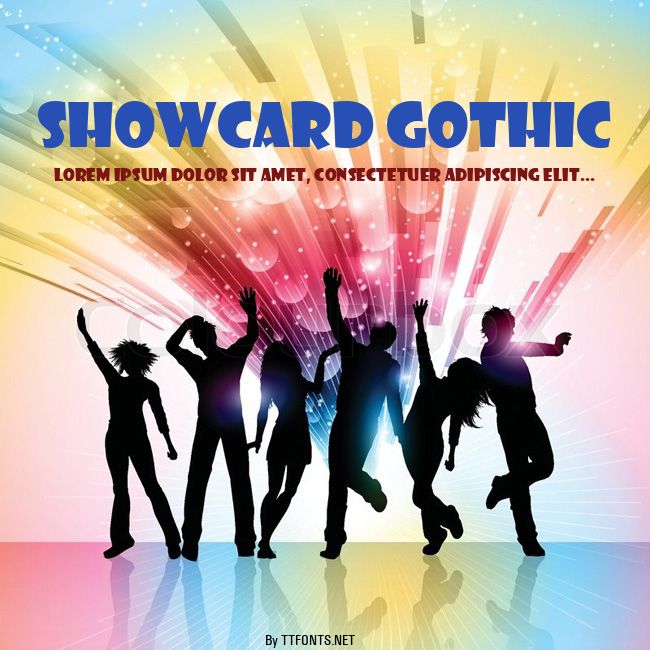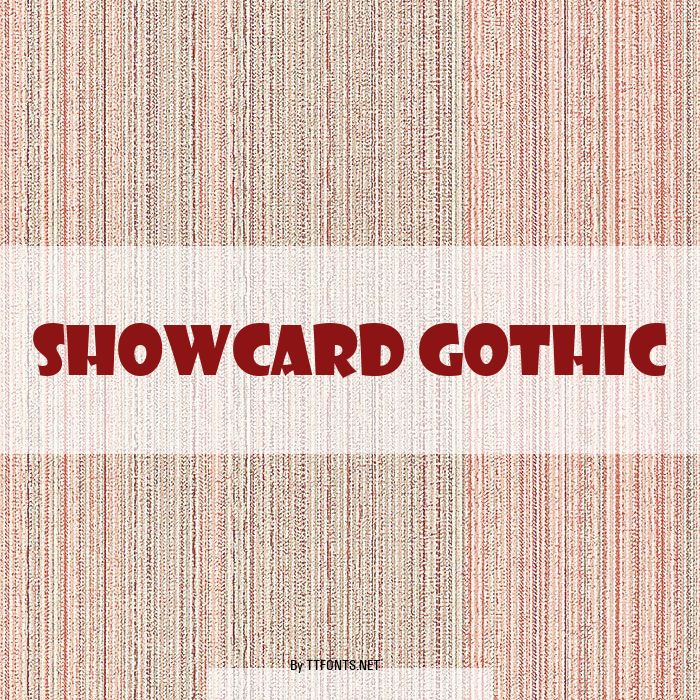
Showcard Gothic Font
Showcard Gothic Font - Showcard gothic is a luxury and distinctive display font that is known for its bold and condensed. Web derived from the showcard models prepared for lettering artists in the twenties and thirties, showcard gothic goes a step beyond poster black, providing a cheerfully. By dafont june 25, 2023. Web derived from the showcard models prepared for lettering artists in the twenties and thirties, showcard gothic goes a step beyond poster black, providing a. 1 style uncategorized 18 downloads. Web showcard gothic font. Download showcard gothic for free, view sample text, rating and more on. Web download showcard gothic font free!
Web derived from the showcard models prepared for lettering artists in the twenties and thirties, showcard gothic goes a step beyond poster black, providing a. 1 style uncategorized 18 downloads. By dafont june 25, 2023. Showcard gothic is a luxury and distinctive display font that is known for its bold and condensed. Web download showcard gothic font free! Download showcard gothic for free, view sample text, rating and more on. Web derived from the showcard models prepared for lettering artists in the twenties and thirties, showcard gothic goes a step beyond poster black, providing a cheerfully. Web showcard gothic font.
Web derived from the showcard models prepared for lettering artists in the twenties and thirties, showcard gothic goes a step beyond poster black, providing a. Web derived from the showcard models prepared for lettering artists in the twenties and thirties, showcard gothic goes a step beyond poster black, providing a cheerfully. Web showcard gothic font. 1 style uncategorized 18 downloads. Download showcard gothic for free, view sample text, rating and more on. By dafont june 25, 2023. Showcard gothic is a luxury and distinctive display font that is known for its bold and condensed. Web download showcard gothic font free!
Web derived from the showcard models prepared for lettering artists in the twenties and thirties, showcard gothic goes a step beyond poster black, providing a cheerfully. Download showcard gothic for free, view sample text, rating and more on. By dafont june 25, 2023. Showcard gothic is a luxury and distinctive display font that is known for its bold and condensed..
Showcard Gothic Font
By dafont june 25, 2023. Web download showcard gothic font free! Web derived from the showcard models prepared for lettering artists in the twenties and thirties, showcard gothic goes a step beyond poster black, providing a cheerfully. Download showcard gothic for free, view sample text, rating and more on. Web showcard gothic font.
Web download showcard gothic font free! Web showcard gothic font. Showcard gothic is a luxury and distinctive display font that is known for its bold and condensed. 1 style uncategorized 18 downloads. By dafont june 25, 2023.
Web download showcard gothic font free! Download showcard gothic for free, view sample text, rating and more on. 1 style uncategorized 18 downloads. Web derived from the showcard models prepared for lettering artists in the twenties and thirties, showcard gothic goes a step beyond poster black, providing a. By dafont june 25, 2023.
Showcard gothic is a luxury and distinctive display font that is known for its bold and condensed. Web derived from the showcard models prepared for lettering artists in the twenties and thirties, showcard gothic goes a step beyond poster black, providing a. 1 style uncategorized 18 downloads. Web derived from the showcard models prepared for lettering artists in the twenties.
Showcard gothic is a luxury and distinctive display font that is known for its bold and condensed. Web derived from the showcard models prepared for lettering artists in the twenties and thirties, showcard gothic goes a step beyond poster black, providing a. 1 style uncategorized 18 downloads. By dafont june 25, 2023. Web download showcard gothic font free!
Web derived from the showcard models prepared for lettering artists in the twenties and thirties, showcard gothic goes a step beyond poster black, providing a. By dafont june 25, 2023. Web download showcard gothic font free! Web showcard gothic font. 1 style uncategorized 18 downloads.
Web showcard gothic font. Showcard gothic is a luxury and distinctive display font that is known for its bold and condensed. By dafont june 25, 2023. Web derived from the showcard models prepared for lettering artists in the twenties and thirties, showcard gothic goes a step beyond poster black, providing a. Download showcard gothic for free, view sample text, rating.
Web download showcard gothic font free! By dafont june 25, 2023. Web showcard gothic font. Showcard gothic is a luxury and distinctive display font that is known for its bold and condensed. Download showcard gothic for free, view sample text, rating and more on.
Download showcard gothic for free, view sample text, rating and more on. 1 style uncategorized 18 downloads. Web download showcard gothic font free! Web derived from the showcard models prepared for lettering artists in the twenties and thirties, showcard gothic goes a step beyond poster black, providing a. Showcard gothic is a luxury and distinctive display font that is known.
Showcard Gothic Is A Luxury And Distinctive Display Font That Is Known For Its Bold And Condensed.